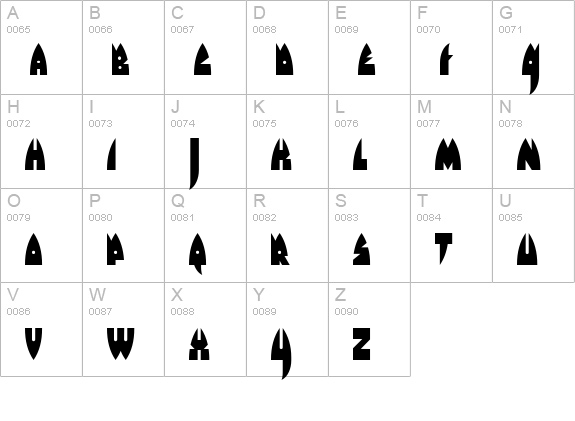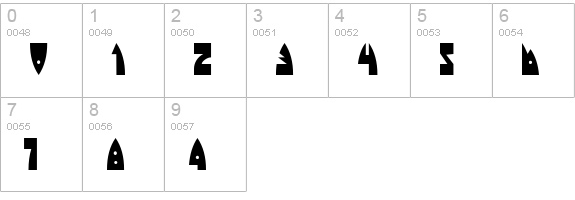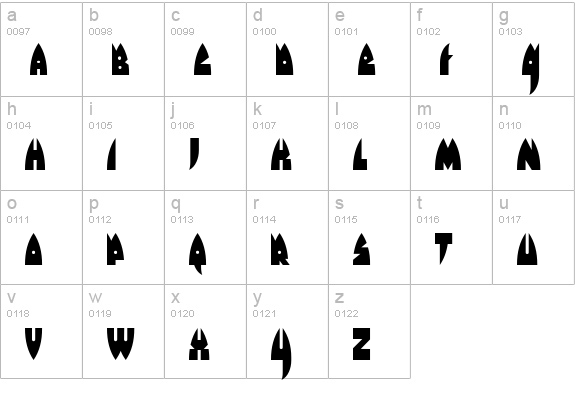
Raketta From Mars Font Details
Introducing the captivating Raketta From Mars font, a stunning typeface that will transport your designs to a whole new dimension. With its futuristic and otherworldly appeal, this font is perfect for adding a touch of cosmic elegance to any project. Raketta From Mars is a free font that combines sleek lines with a hint of extraterrestrial charm. Its unique design captures the essence of space exploration, making it an ideal choice for science fiction-themed projects, futuristic branding, and innovative advertising campaigns. The characters of Raketta From Mars are beautifully crafted, with precise curves and sharp angles that give the font a sense of boldness and sophistication. Each letter has a distinct personality, allowing for endless creative possibilities when it comes to crafting attention-grabbing headlines, stylish logos, or captivating social media posts. What makes Raketta From Mars even more enticing is the fact that it is freely available to download at FontsMarket.com. This means that you can easily access this extraordinary font and unleash your imagination without any limitations. Whether you are a professional designer or an enthusiastic amateur, Raketta From Mars is the perfect tool to elevate your creations to new heights. So why wait? Embrace the future of design and let Raketta From Mars take your projects to infinity and beyond. Download this remarkable font for free at FontsMarket.com and embark on a cosmic journey of creativity today.